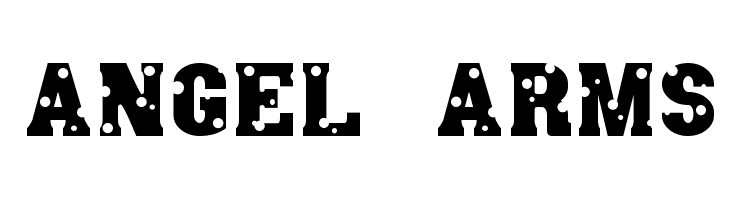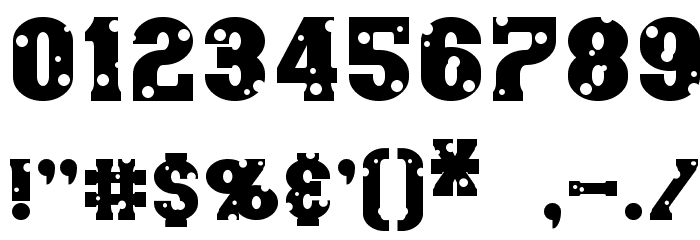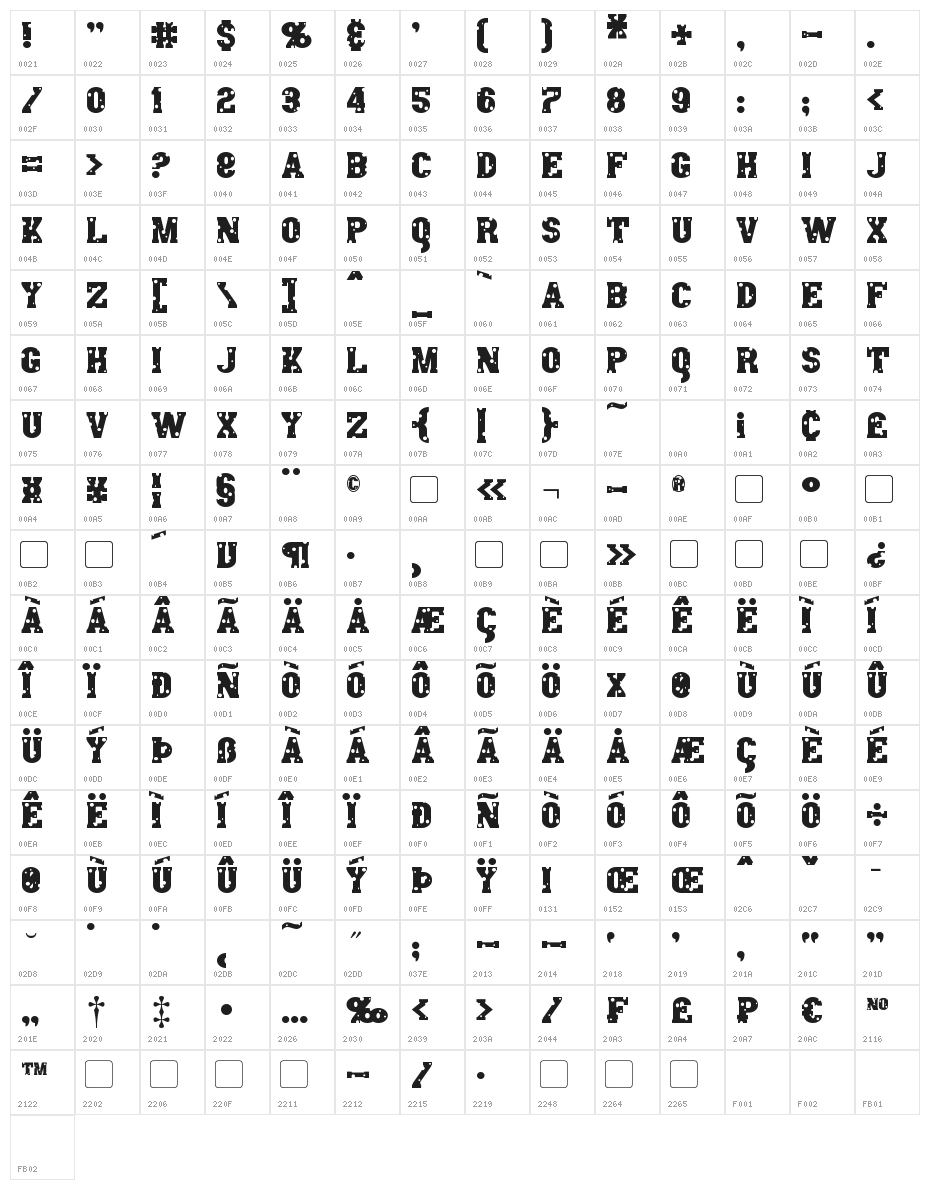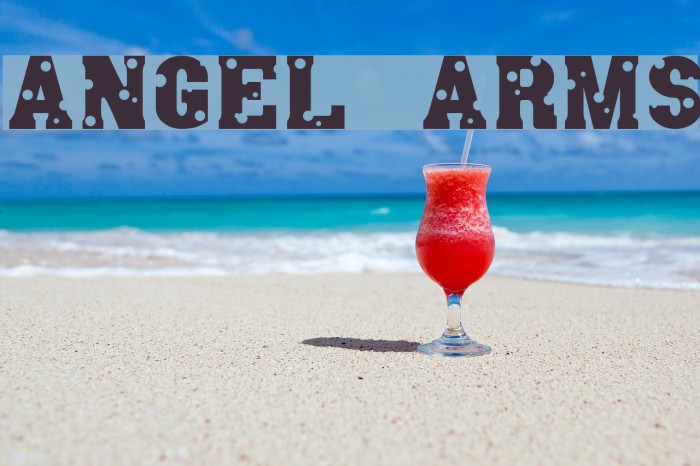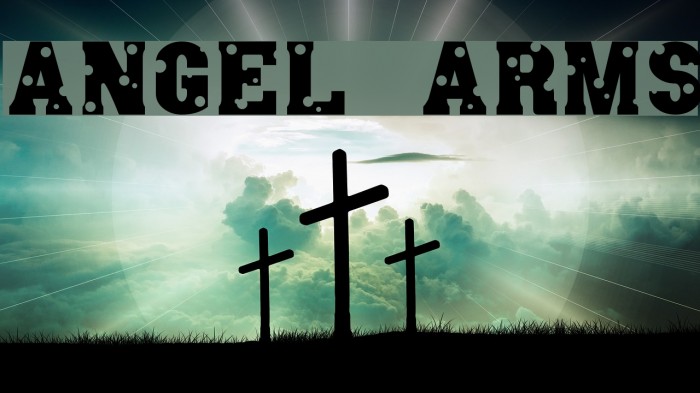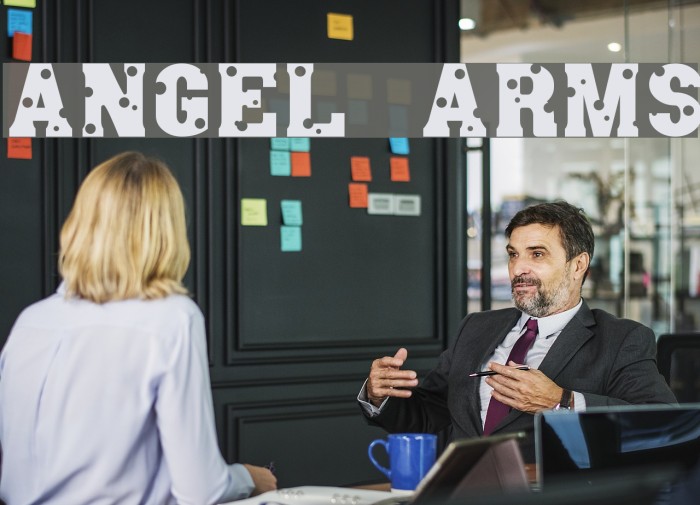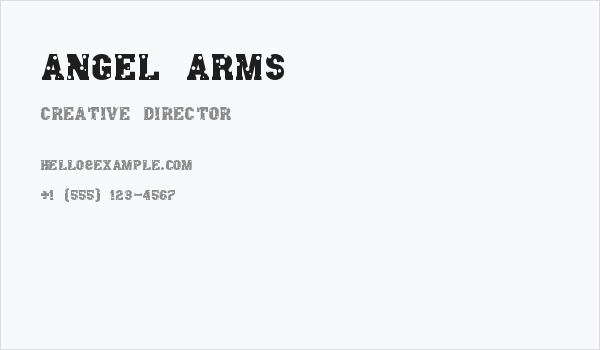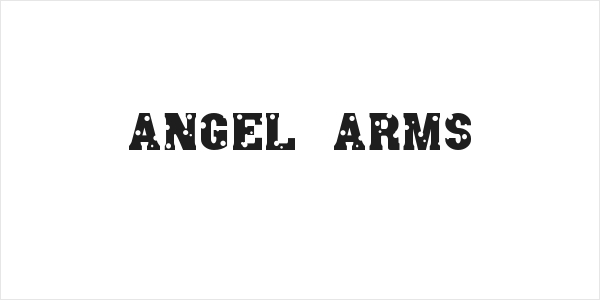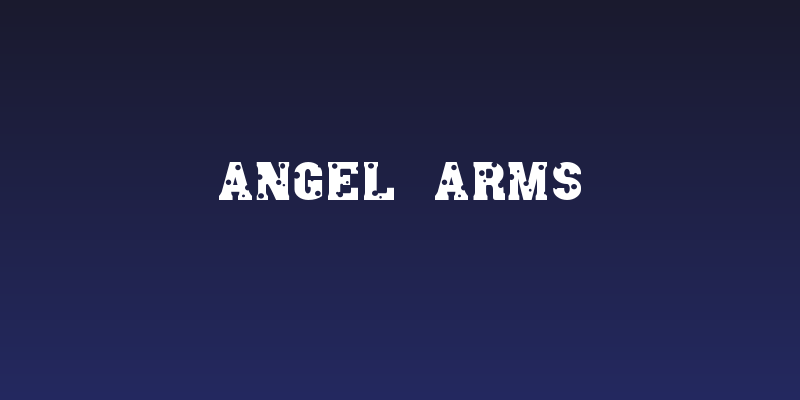
Angel Arms Font
Angel Arms Description
This font features a bold and decorative style with a unique design that incorporates small circular cutouts within each character. The uppercase and lowercase letters maintain a consistent weight and width, providing a cohesive look. The numbers and special characters follow the same decorative theme, making the font suitable for eye-catching designs. The boldness and distinct style make it ideal for projects that require a strong visual impact.
| Proposed Projects | Ideal for posters, logos, and branding materials that require a bold and unique aesthetic. |